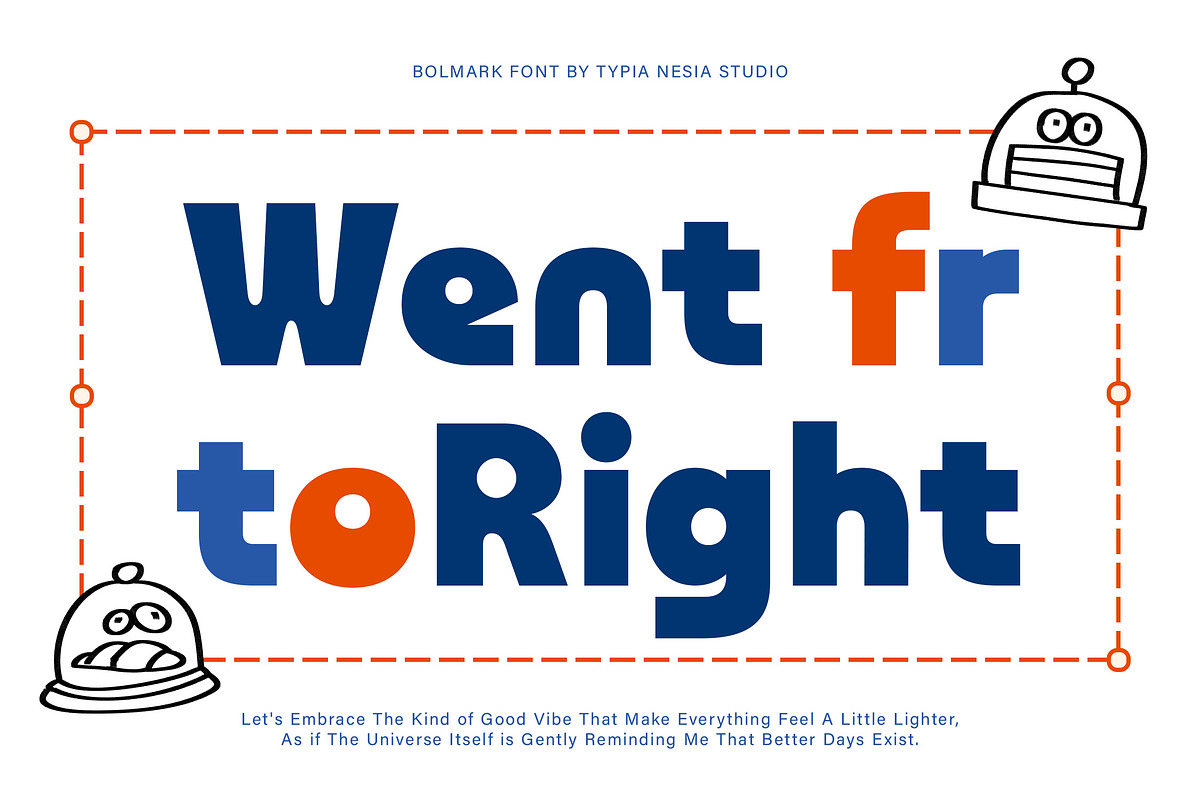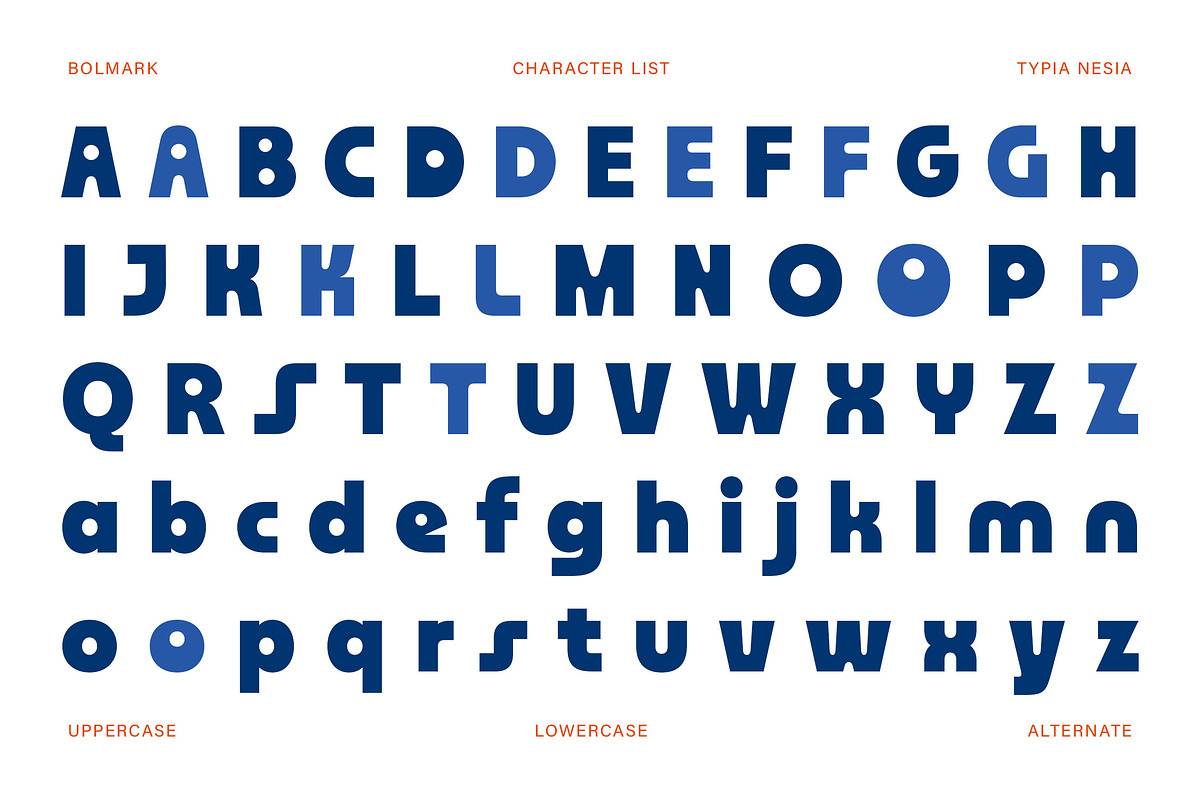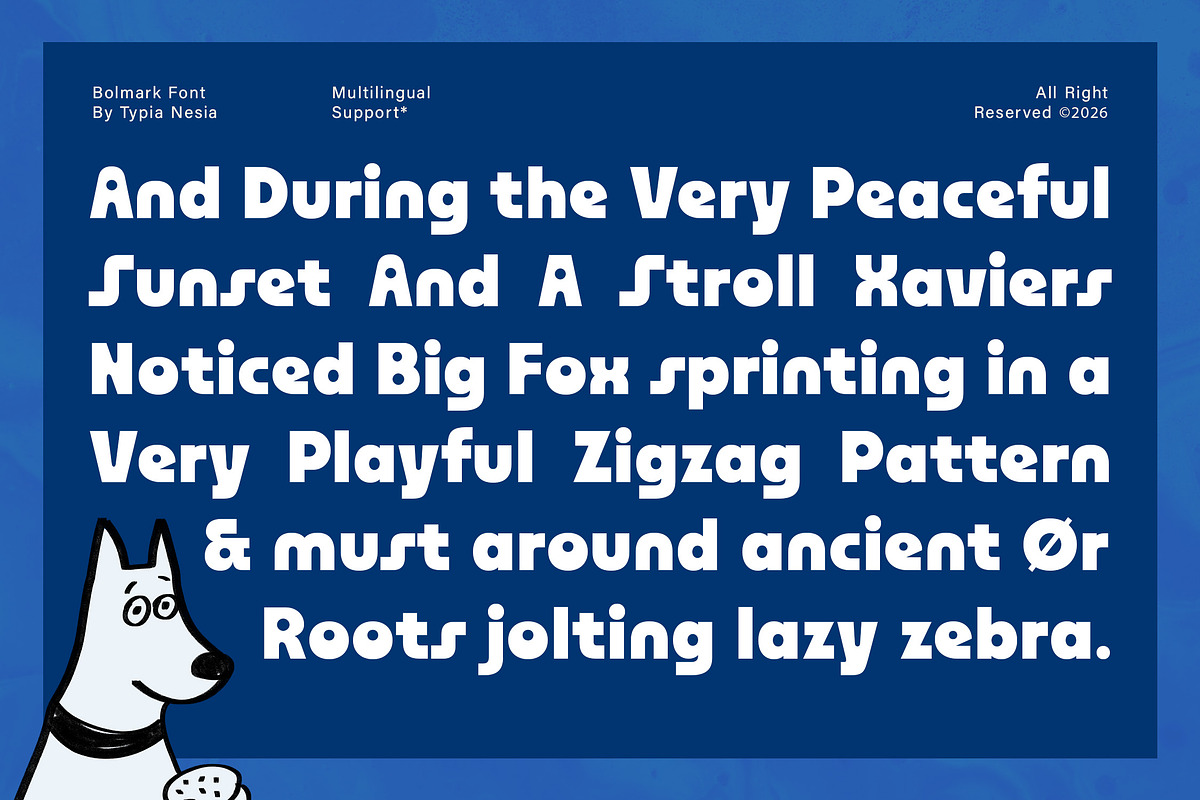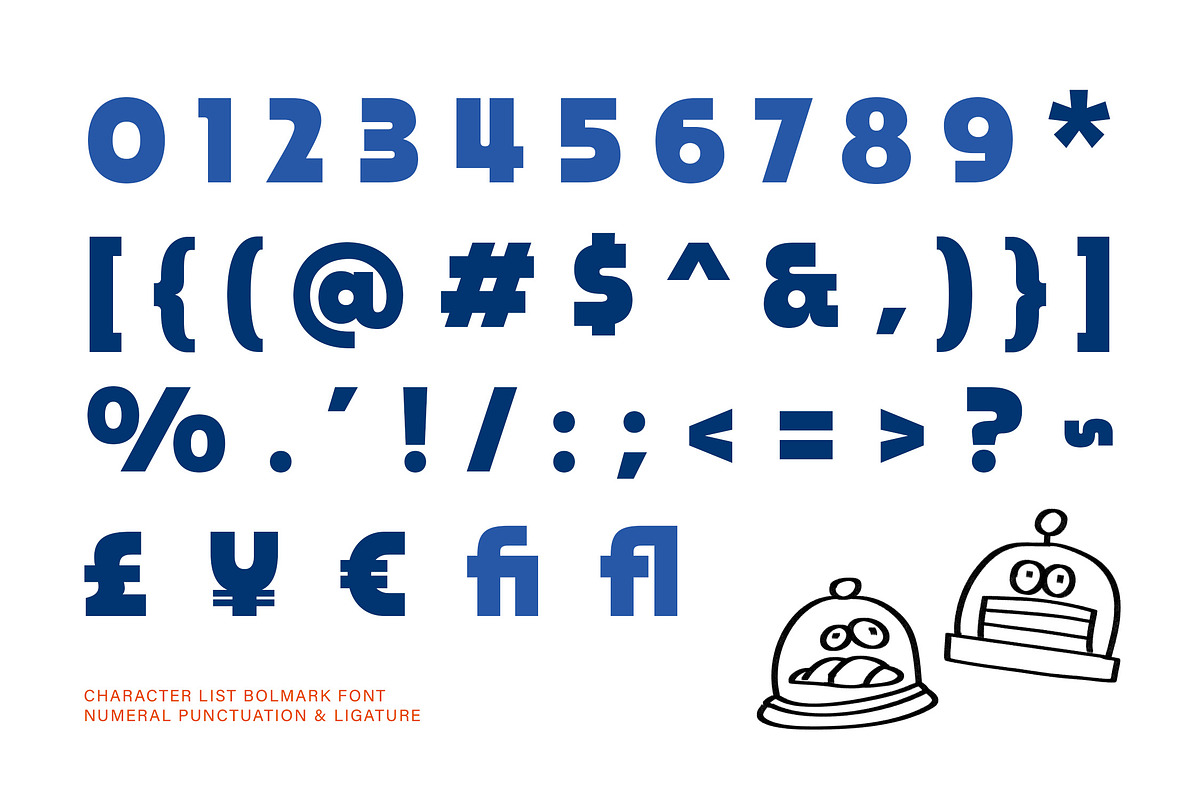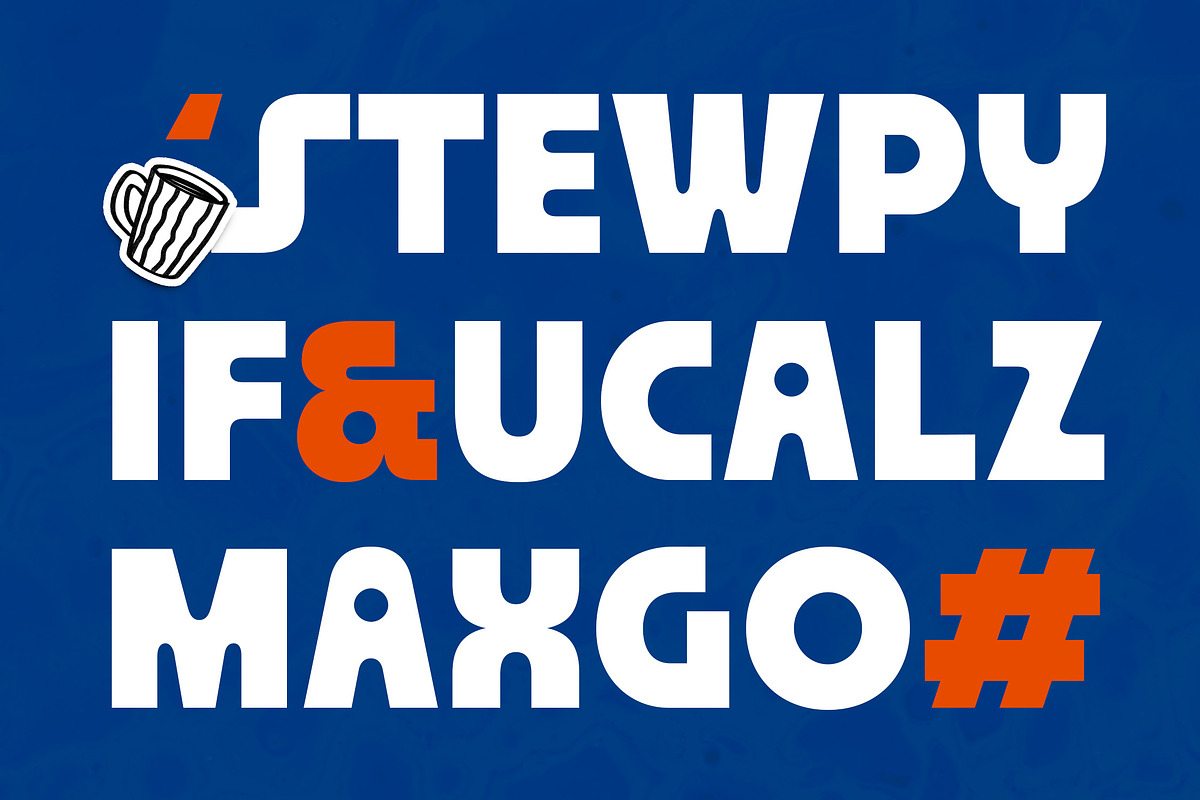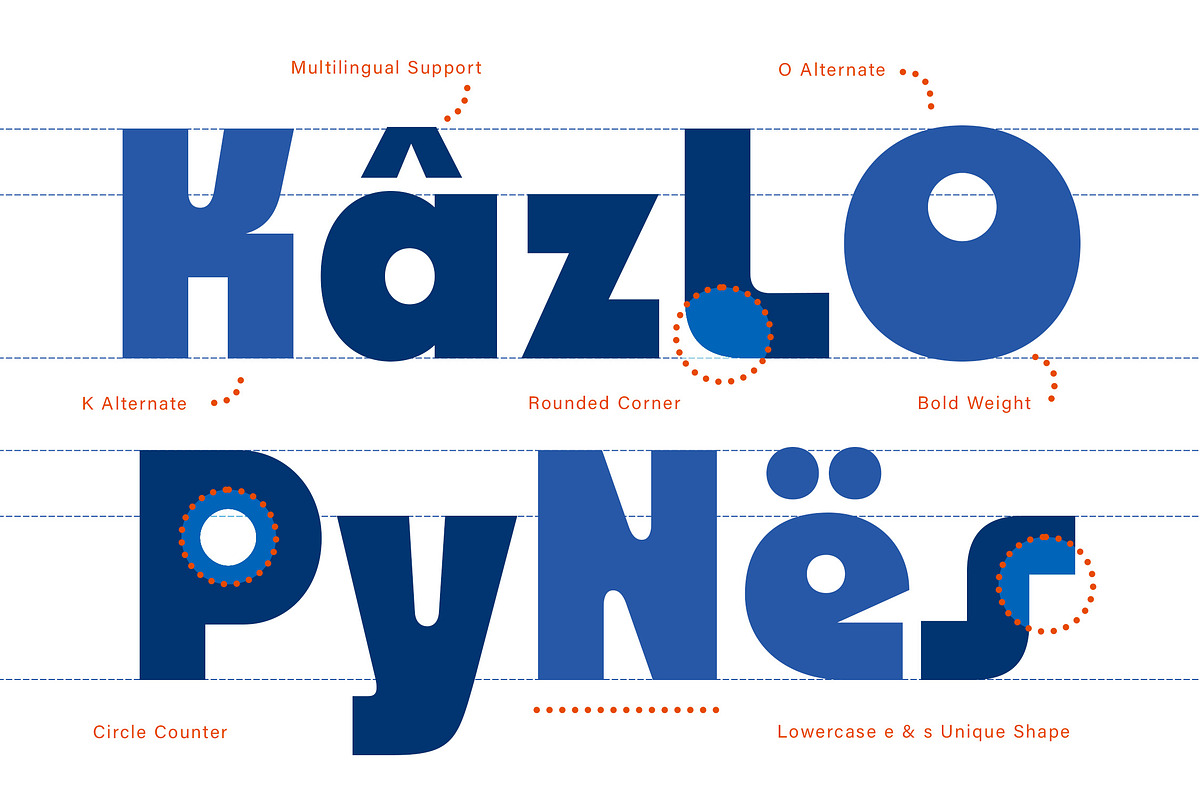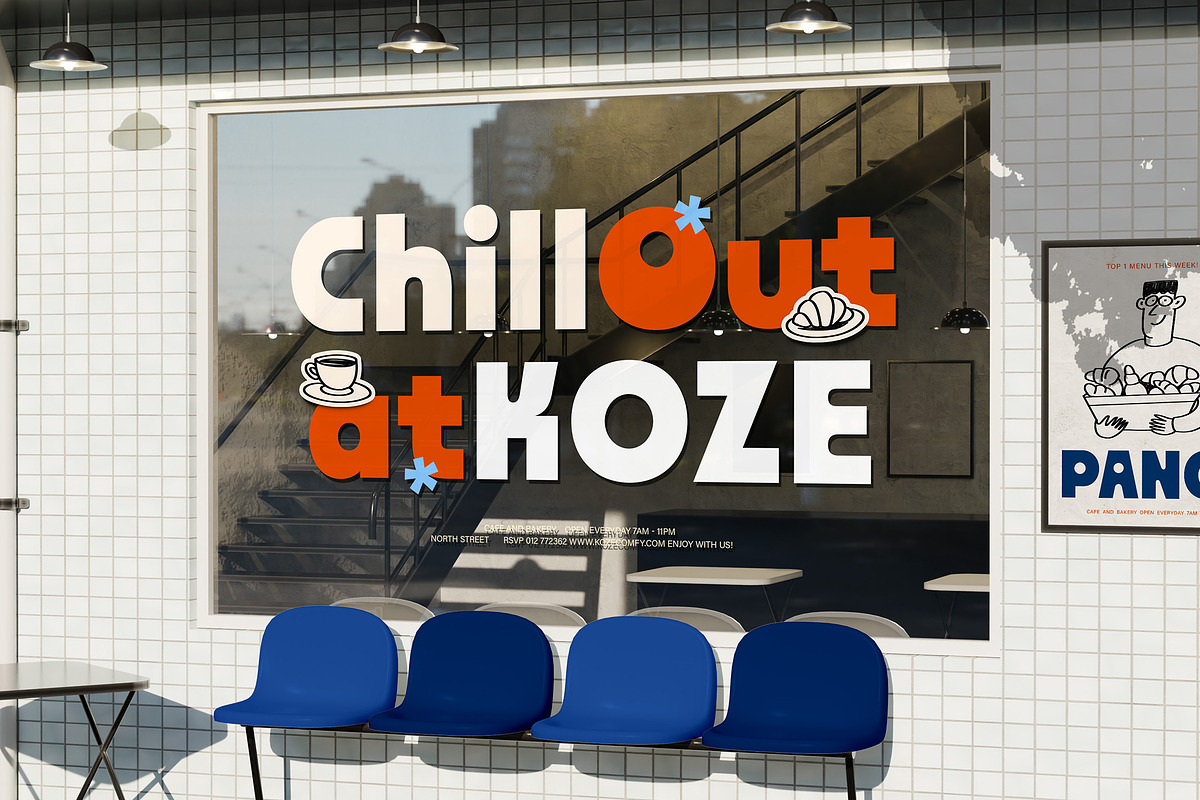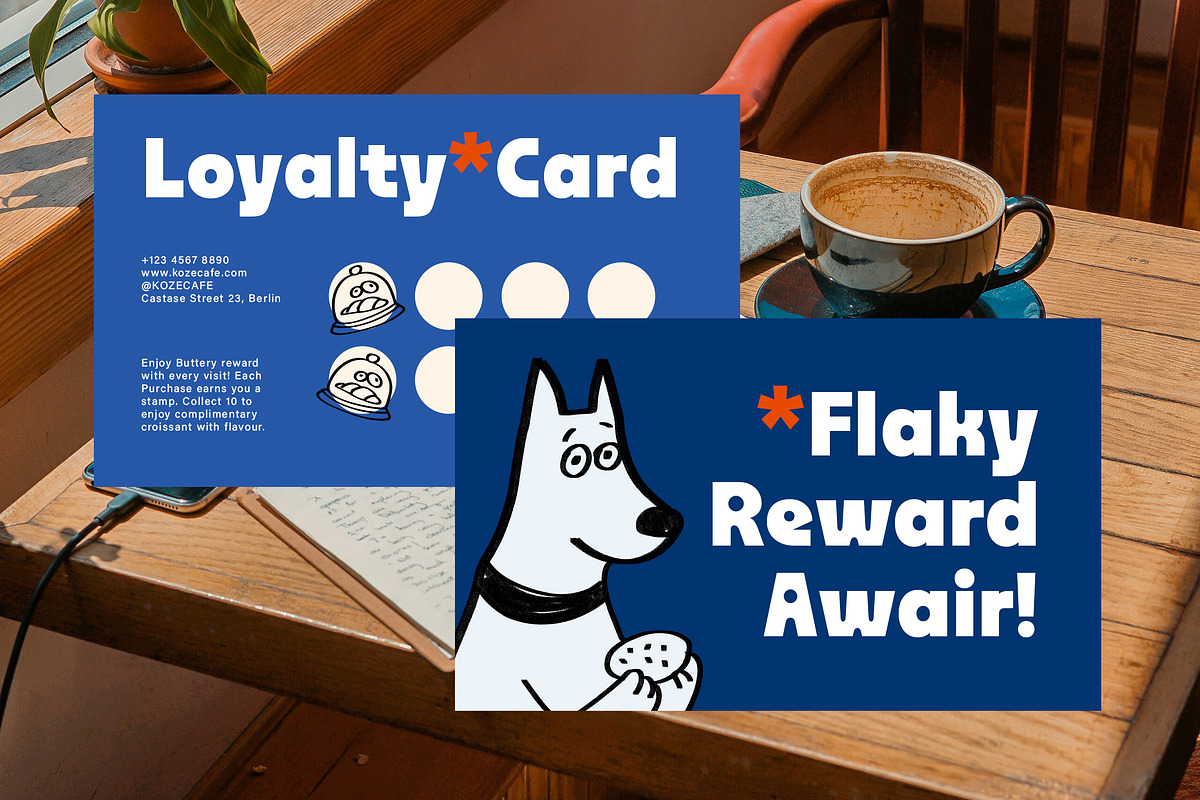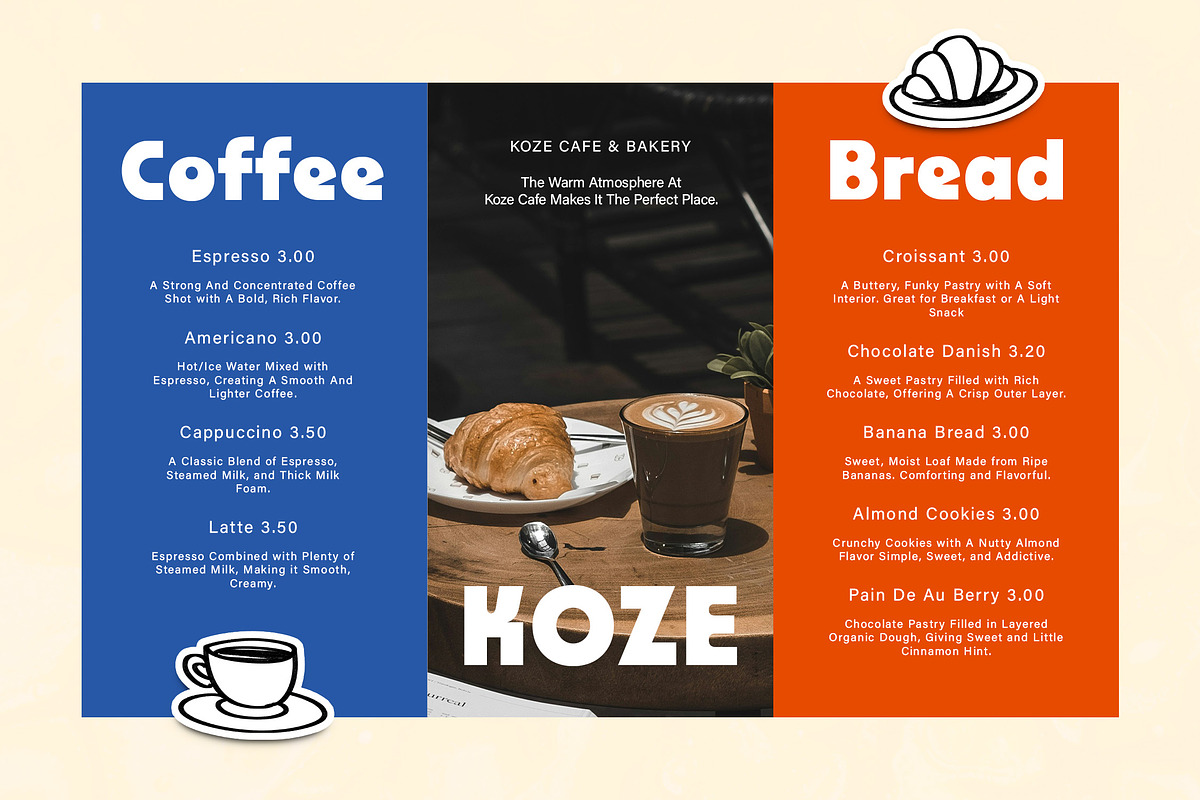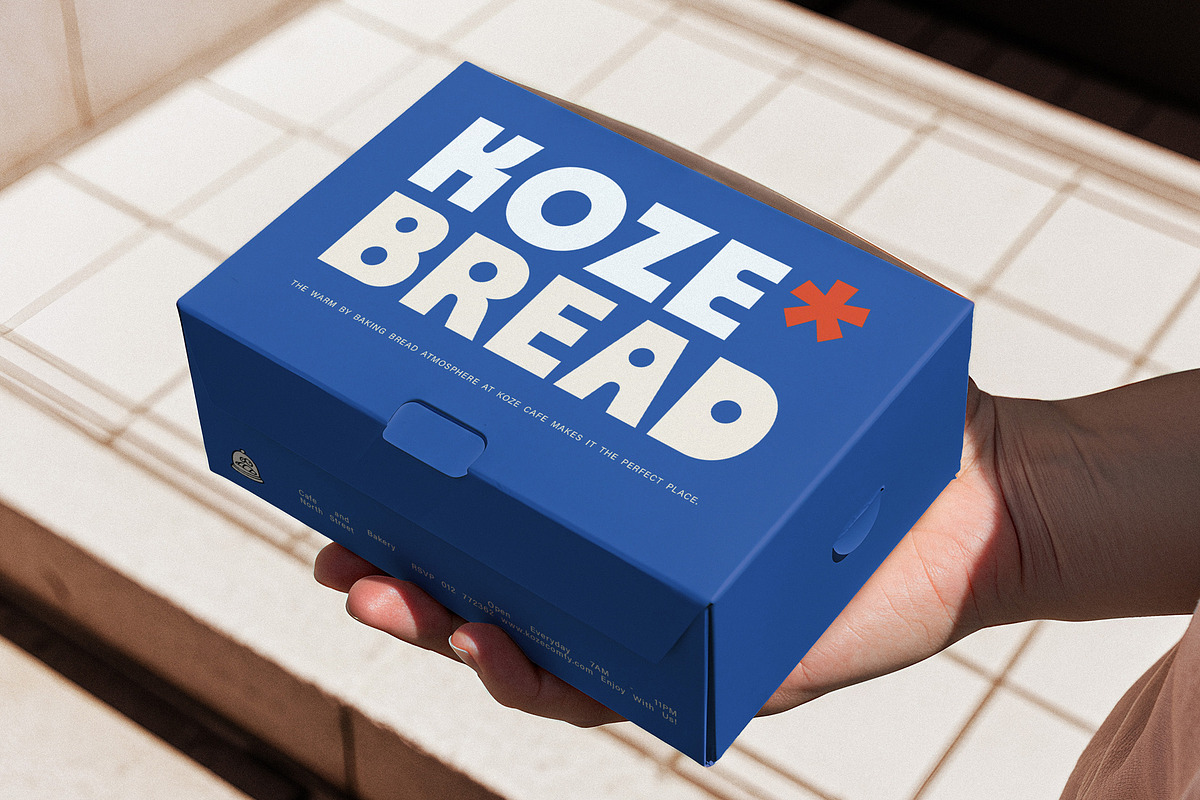
Bolmark – Retro Bauhaus Bold Sans
Bolmark – Retro Bauhaus Bold Sans - Modern Minimal Rounded Geometric Display Font
Bolmark is a bold retro Bauhaus sans serif font that blends modern geometric structure with a playful and creative spirit. Inspired by classic Bauhaus design and disco-era aesthetics, this typeface features rounded shapes, smooth curves, and strong bold forms that create a fun yet minimal visual impact. It is perfect for a wide range of projects, including branding, logos, game design, kids’ themes, posters, headlines, and any project that needs to stand out in both modern and nostalgic layouts. Bolmark delivers a creative and energetic typographic style that feels both timeless and fresh.
Make your designs bold and playful with Bolmark.